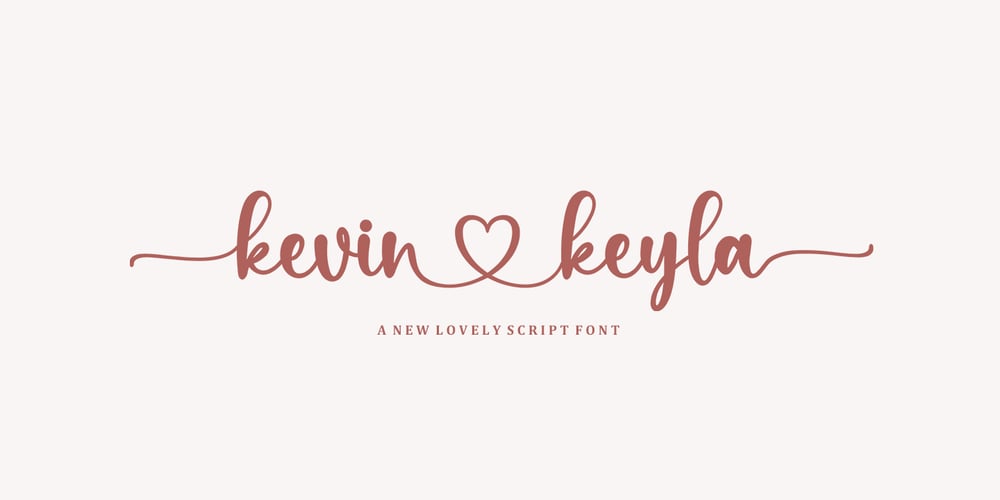
Kevin Keyla
Kevin Keyla font
Kevin Keyla Font Family was designed by Mu Fazzal and published by Bosstypestudio. Kevin Keyla contains 1 styles and family package options. Kevin Keyla is an cute calligraphy luxury font that comes with a very beautiful character change, a kind of classic decorative script with a modern touch, designed with high detail to present an elegant style.Kevin Keyla is attractive because the typeface is pleasing to the eye, clean, feminine, sensual, glamorous, simple and very easy to read, thanks to its many extravagant letter relationships. I also offer a decent number of stylistic alternatives for some of the letters. Classic style is very suitable to be applied in various formal forms such as invitations, labels, restaurant menus, logos, fashion, make up, stationery, novels, magazines, books, greeting/wedding cards, packaging, labels or all kinds of advertising purposes. and much more. ..Thanks & Happy Designing!